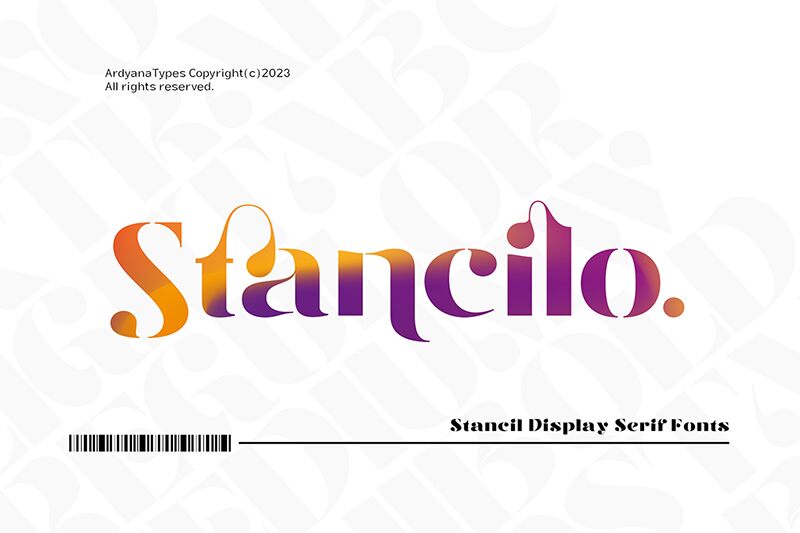
Stancilo, crafted by the talented designer Ardyana Putra, is a captivating serif font with a unique stencil twist. This versatile typeface seamlessly blends classic elegance with modern edginess, making it perfect for an array of projects. From sophisticated logo designs and branding materials to eye-catching headlines and editorial layouts, Stancilo adds a touch of refinement and boldness to any creative endeavor. Its distinctive serifs combined with the stencil elements make this font ideal for fashion magazines, luxury brands, artisanal product packaging, or even contemporary art exhibitions. Unleash your creativity and elevate your designs with Stancilo!
Stancilo